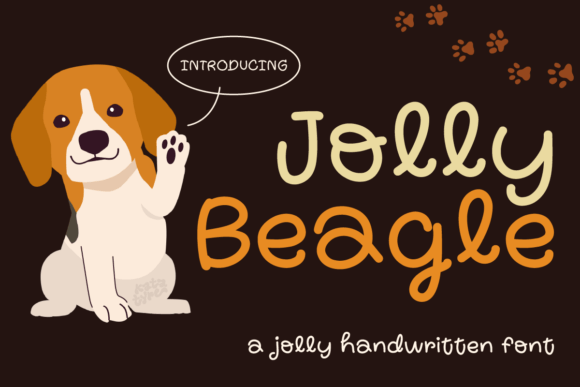
Embark on a whimsical journey with Jolly Beagle, the captivating script font that exudes cheerfulness and delight. Specially crafted by Katatype, this charming handwritten typeface is the ultimate choice for designers seeking to infuse their creations with a playful and captivating aura.
Crafted with precision and artistry, Jolly Beagle dances across your designs with its vibrant and whimsical strokes. Each letterform bursts with personality, adding a touch of joy and intrigue to every word and phrase. Indulge in the font's endless versatility, effortlessly weaving it into posters, invitations, social media graphics, and any project yearning for an infusion of lighthearted charm.
Step into a world where creativity knows no bounds, where Jolly Beagle becomes your trusted companion in expressing your unique style. Its easygoing nature gracefully complements both formal and casual settings, making it an ideal choice for a diverse range of projects.
With Jolly Beagle as your creative ally, you can effortlessly craft designs that resonate with your audience, leaving a lasting impression that lingers long after the page is turned or the screen is closed. Embrace the font's infectious energy and watch as your designs transform into captivating masterpieces that spark joy and ignite imaginations.
- Exudes playfulness and charm
- Perfect for creating quirky and eye-catching designs
- Adds personality to posters, invitations, and social media graphics